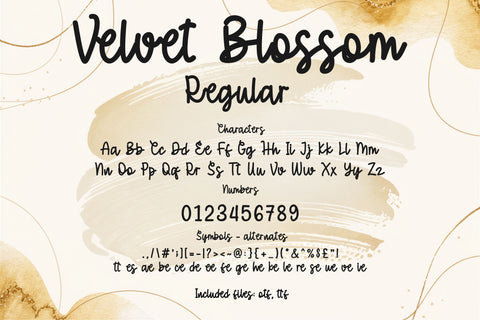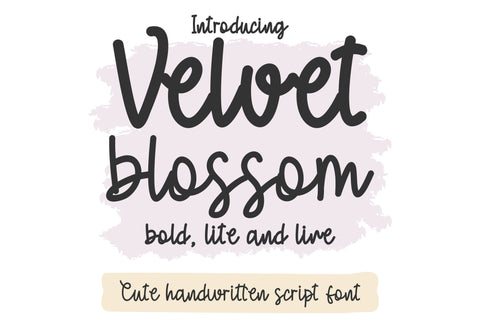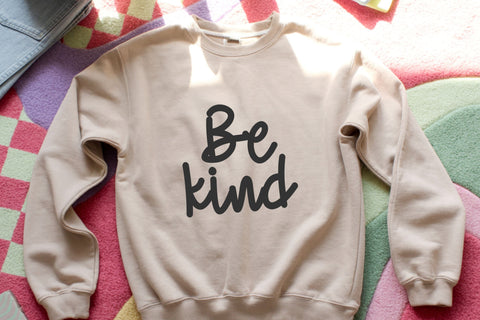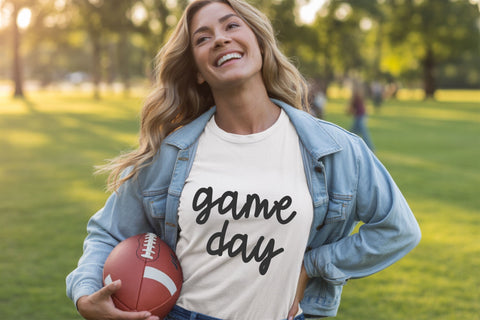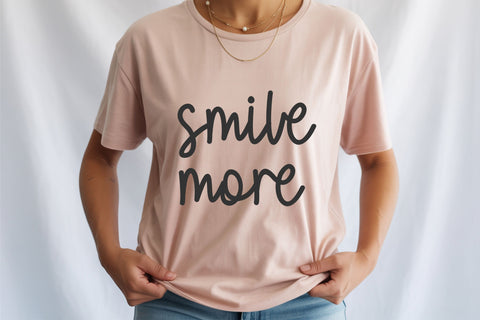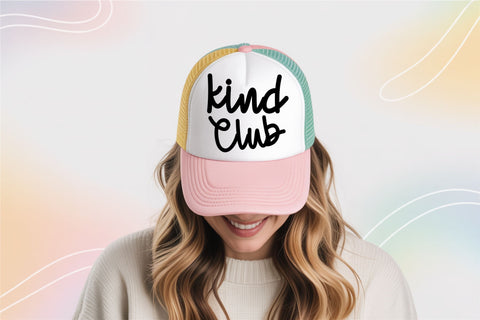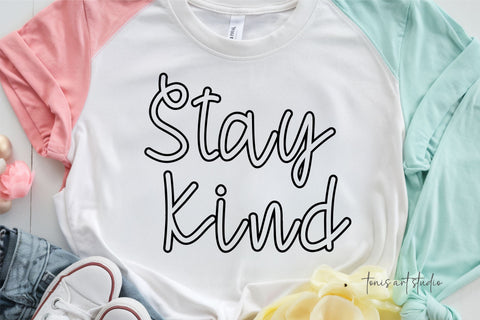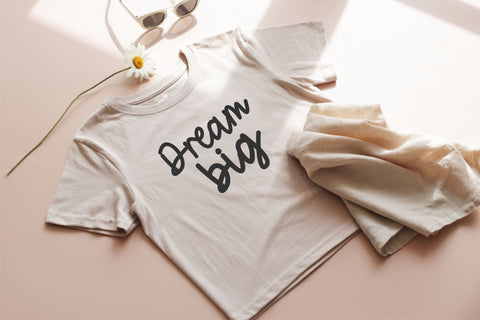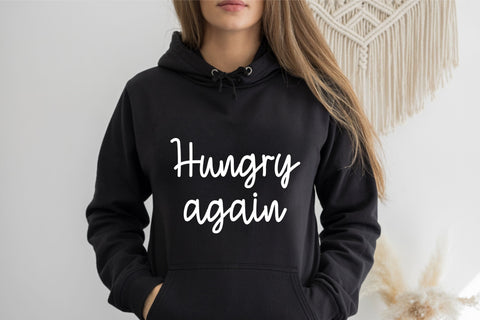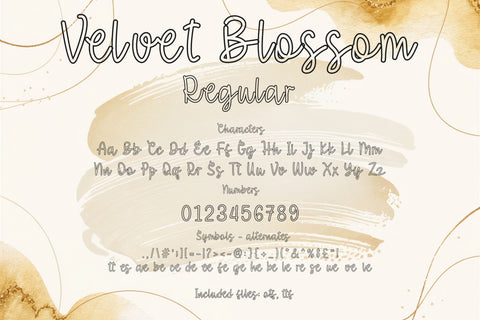
Immerse your creative projects in a delightful sense of warmth and charm with the Velvet Blossom Font Family. Encompassing Velvet Blossom Bold, Lite, and Line, the unique ambiance of this enchanting handwritten font invokes tender feelings of coziness and positivity. Perfectly suited for everything from whimsical children’s clothing verbiage to uplifting teacher's resources, it crafts elegant threads of playful Cricut creations with every stroke. Unveiling its exceptional uniqueness, Velvet Blossom flourishes with naturally cascading letters that exude an organic, personal touch while maintaining a sleek, contemporary aesthetic. This tenderly designed script offers the versatility of three striking styles, endowing your projects ranging from chic tote bags to motivational wall art with a gentle handwritten touch. Be it sprucing up celebratory birthday invitations, creating captivating journal entries, designing love-infused stickers or customizing charming nursery prints, the Velvet Blossom Font Family effortlessly sprinkles a dash of softness, character, and creative flexibility into your design endeavors.